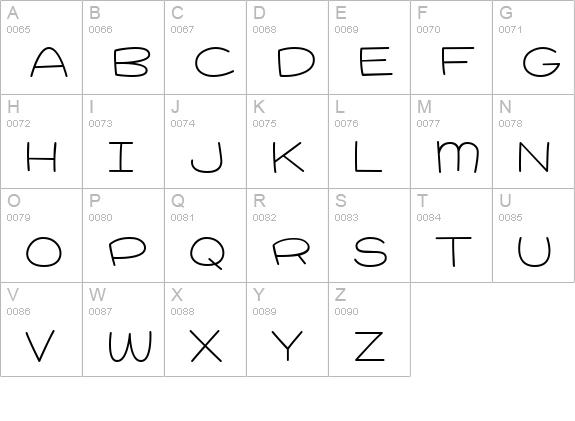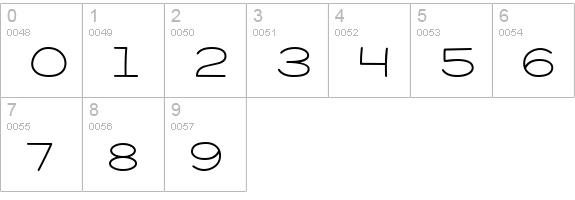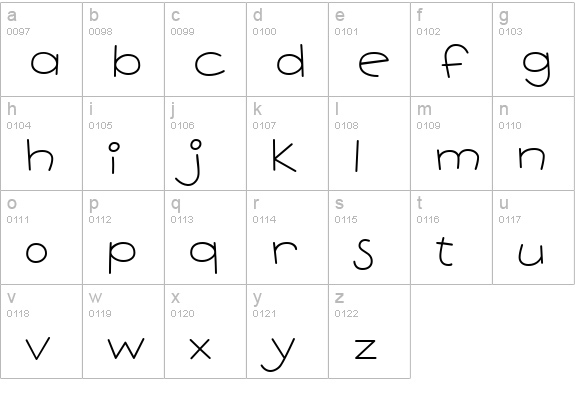
Pie Contest BTN Round Lt Font Details
Pie Contest BTN Round Lt font is a delightful and charming typeface that adds a touch of whimsy to any design project. Its round and friendly letterforms are perfect for conveying a sense of warmth and welcoming. This font is ideal for showcasing the deliciousness of pies, whether it's for a bakery logo, a menu design, or a recipe card. The Pie Contest BTN Round Lt font is freely available to download at FontsMarket.com. This means that you can easily access and use this font in your projects without any cost. It's a fantastic opportunity to add a playful and inviting touch to your designs without breaking the bank. With its clean and legible characters, Pie Contest BTN Round Lt font is also versatile and easy to read, making it suitable for a wide range of applications. Whether you're creating signage for a pie competition, designing a poster for a bake sale, or crafting a blog header for a food-related website, this font will bring a sense of fun and whimsy to your design. In addition to its playful aesthetic, Pie Contest BTN Round Lt font also offers a wide range of stylistic alternates and ligatures, allowing you to customize your text and create a truly unique look. Its versatility and attention to detail make it a valuable addition to any designer's toolkit. So why wait? Download the Pie Contest BTN Round Lt font for free at FontsMarket.com and let your creativity soar. Whether you're a professional designer or a passionate hobbyist, this font will surely bring a delightful and charming touch to your projects. Don't miss out on this fantastic opportunity to enhance your designs with this freely available font.